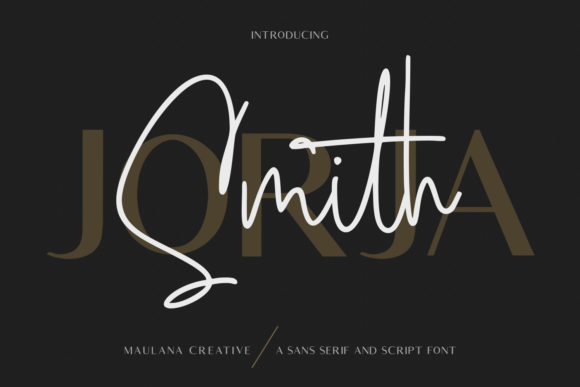
Introducing the mesmerizing Jorja Smith Font Duo, a sensational addition to your font collection. This exquisite font, created by the talented Maulana Creative, is designed to captivate and breathe new life into your designs.
With its perfect blend of a sans serif and script font, Jorja Smith Font Duo is the epitome of elegance and sophistication. Its medium contrast strokes and playful characters exude a sense of charm and personality, making it an ideal choice for all your creative endeavors.
Are you tired of the same old fonts? Jorja Smith Font Duo is here to revolutionize your designs with its unique ligatures and alternates. These special features allow you to explore endless possibilities and create truly one-of-a-kind masterpieces that will leave a lasting impression.
Looking to make a lasting impact with your modern resume? Look no further! Jorja Smith Font Duo is the best font for modern resumes, guaranteed to make your application stand out from the crowd. Its sleek and contemporary design will instantly elevate your resume, leaving a lasting impression on potential employers.
But Jorja Smith Font Duo is not just limited to resumes. Its versatility knows no bounds. From branding projects to social media graphics, wedding invitations to packaging designs, this font is the ultimate tool to add a touch of elegance and style to any project.
Experience the sheer joy of working with Jorja Smith Font Duo. Let your creativity soar as you explore its mesmerizing curves and graceful strokes. The beauty and refreshing look it brings to your designs will leave you in awe.
Don't settle for ordinary fonts when you can have extraordinary. Download Jorja Smith Font Duo and unlock a world of endless possibilities. Join the league of creative minds who have embraced this font and witnessed the transformation it brings to their designs.
In a world where first impressions matter, Jorja Smith Font Duo is your secret weapon. Make a statement, leave an unforgettable mark, and let your designs speak volumes. Elevate your creations with the best font for modern resumes and let your talent shine through.